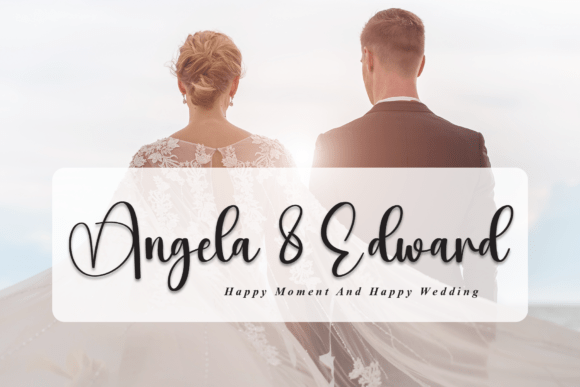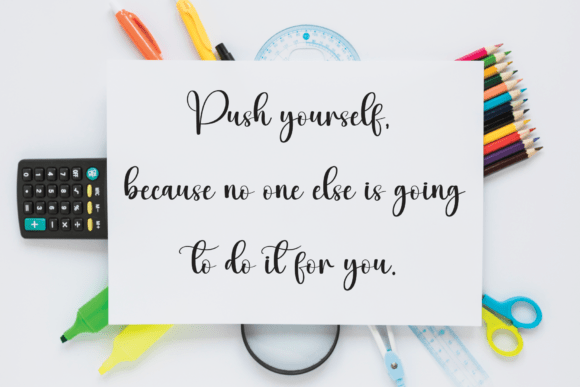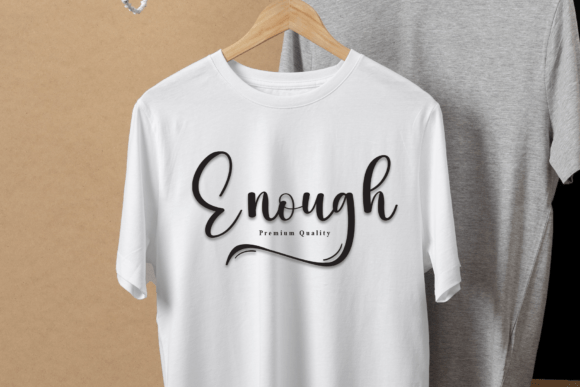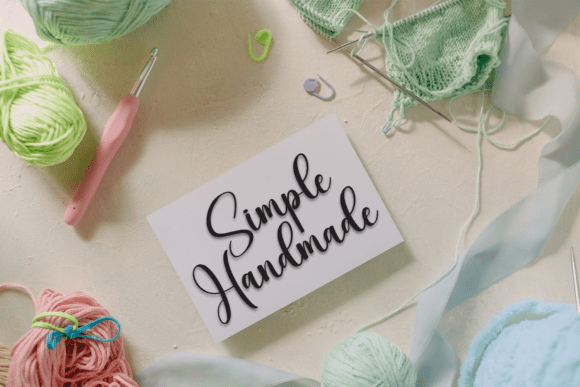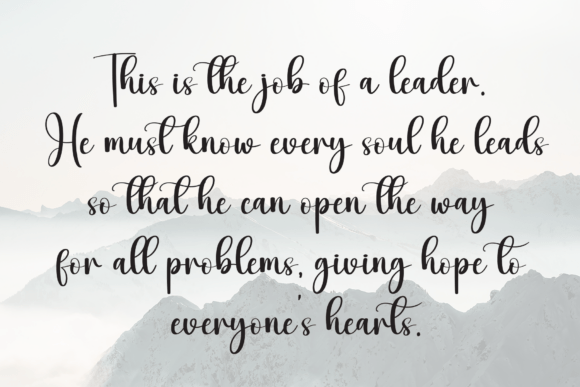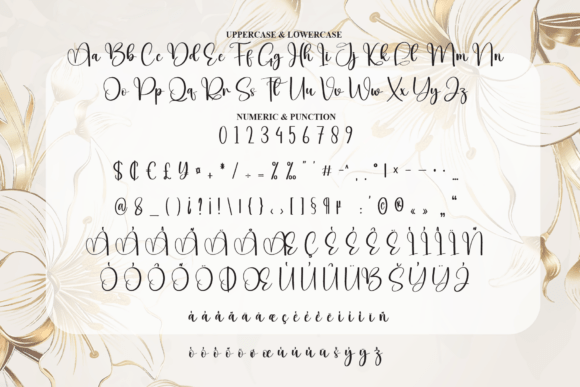
The Timeless Charm of Beauty Vintage Font
I’ll never forget the time I was working on a branding project for a luxury wedding planner, and I was struggling to find the perfect font to capture the essence of her high-end services. The client wanted something elegant, yet playful; sophisticated, yet approachable. That’s when I stumbled upon the Beauty Vintage font, and it was love at first sight! 💕
With its smooth, flowing strokes and natural handwritten feel, Beauty Vintage brings a touch of elegance, charm, and personality to any design. It’s perfect for logos, invitations, greeting cards, branding, quotes, and social media graphics. In this article, I’ll share my honest review of this beautiful font, provide a practical guide on how to use it, and explore similar fonts that you might love.
An Honest Review of Beauty Vintage Font
- ✅ The font’s smooth, flowing strokes and natural handwritten feel make it perfect for adding warmth and authenticity to designs.
- ✅ Its playful yet sophisticated look captures the beauty of hand lettering, making it ideal for a wide range of projects.
- ✅ The font is highly versatile and can be used for logos, invitations, greeting cards, branding, quotes, and social media graphics.
- ✅ It’s easy to read and understand, making it perfect for body text and captions.
While Beauty Vintage is an amazing font, there are a few things to keep in mind:
- 🤔 The font may not be suitable for very small text sizes, as some details may get lost.
- ⚠️ Some users may find the font a bit too ornate for certain projects, such as technical or formal documents.
- Experiment with different OpenType features, such as ligatures and stylistic alternates, to add more personality to your design.
- Use the font’s built-in features, such as ligatures and stylistic alternates, to add more personality to your document.
The Backstory of Beauty Vintage Font
Beauty Vintage was designed by a talented type designer who wanted to create a font that captured the essence of hand lettering. The designer drew inspiration from vintage posters, elegant wedding invitations, and classic novels. The result is a font that’s both elegant and playful, perfect for adding a touch of sophistication to any design.
| Font Name | Beauty Vintage Font |
| Author | Creativewhitee |
Q: What is the Beauty Vintage font?
A: Beauty Vintage is a beautiful script font that captures the essence of hand lettering. It’s perfect for adding a touch of elegance and sophistication to any design.
Q: Is Beauty Vintage suitable for body text?
A: While Beauty Vintage is a beautiful font, it’s best suited for headlines and titles. However, it can be used for body text in certain contexts, such as invitations or greeting cards.
Q: Is Beauty Vintage available in different languages?
A: Yes, Beauty Vintage is available in multiple languages, including English, Spanish, French, and more.